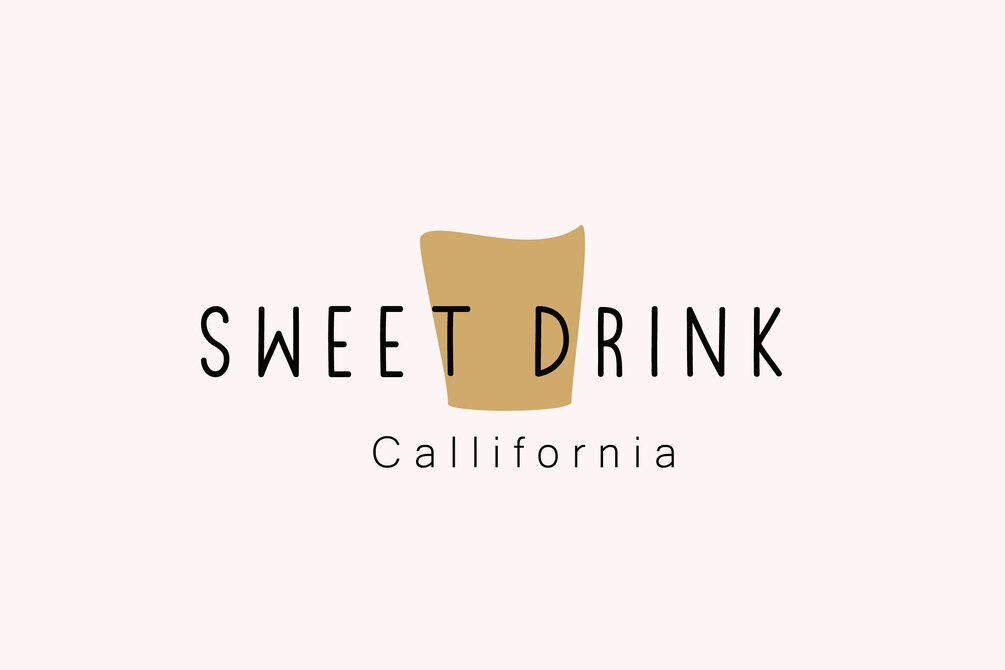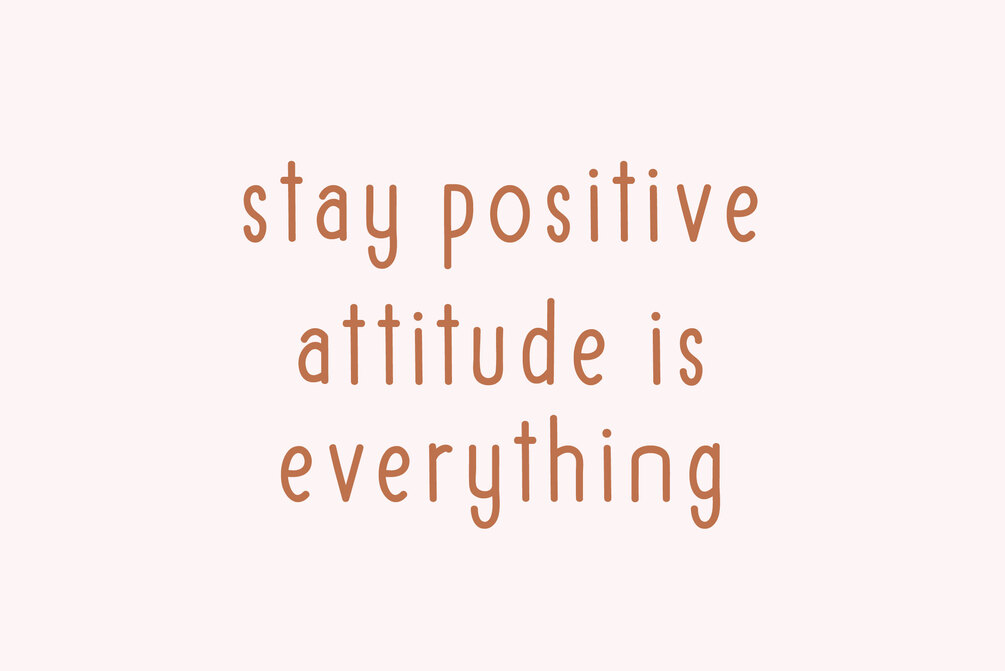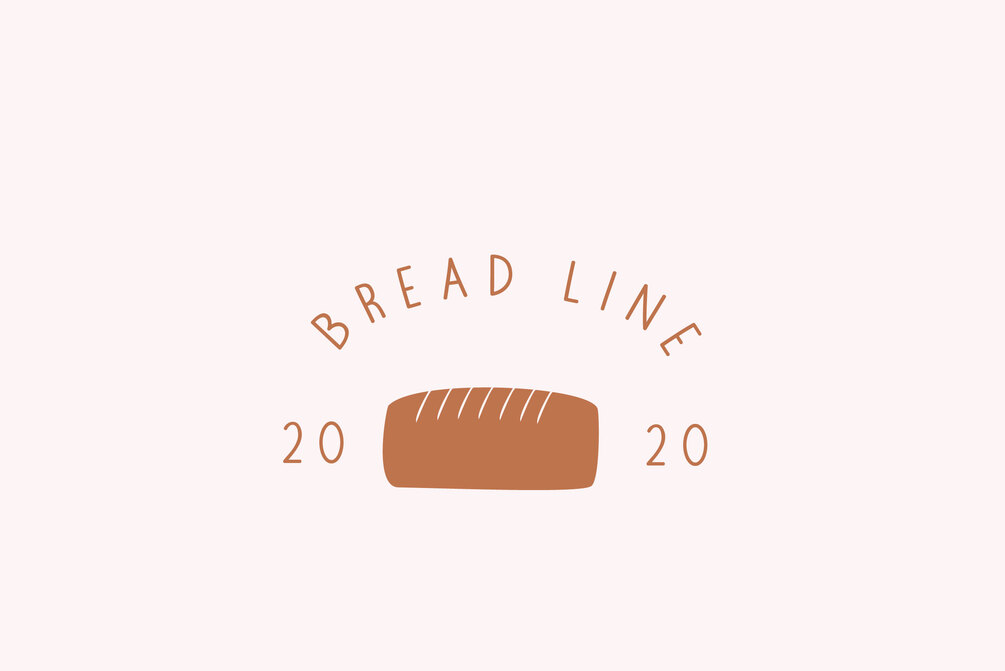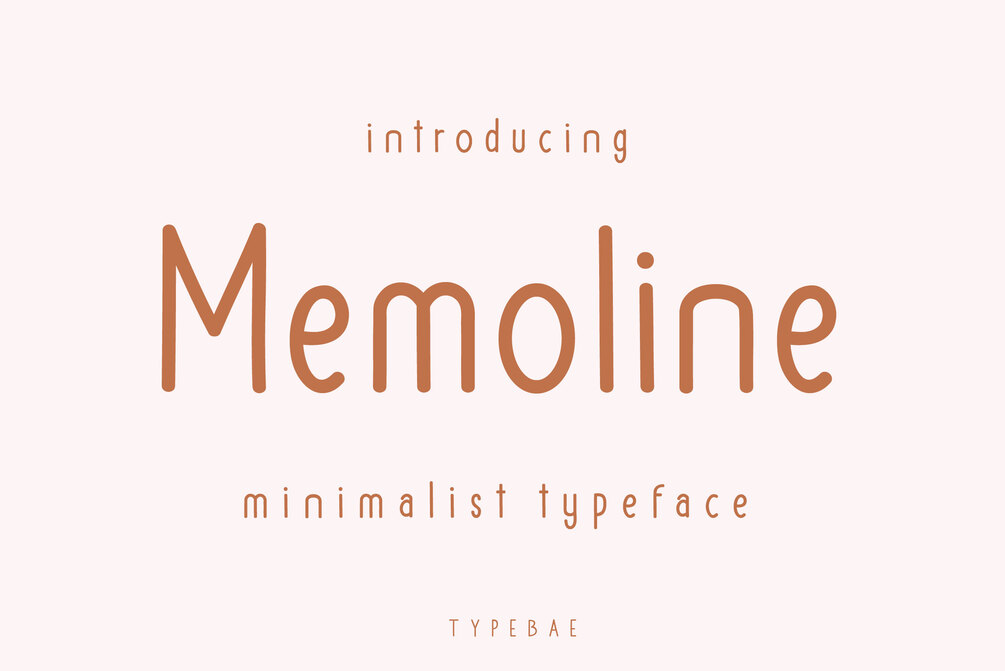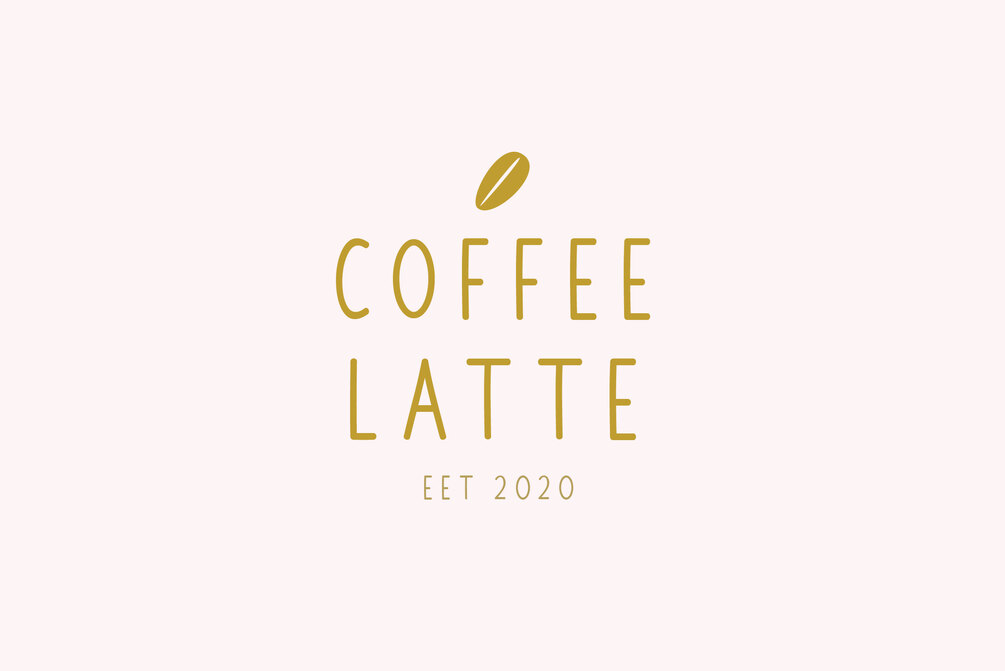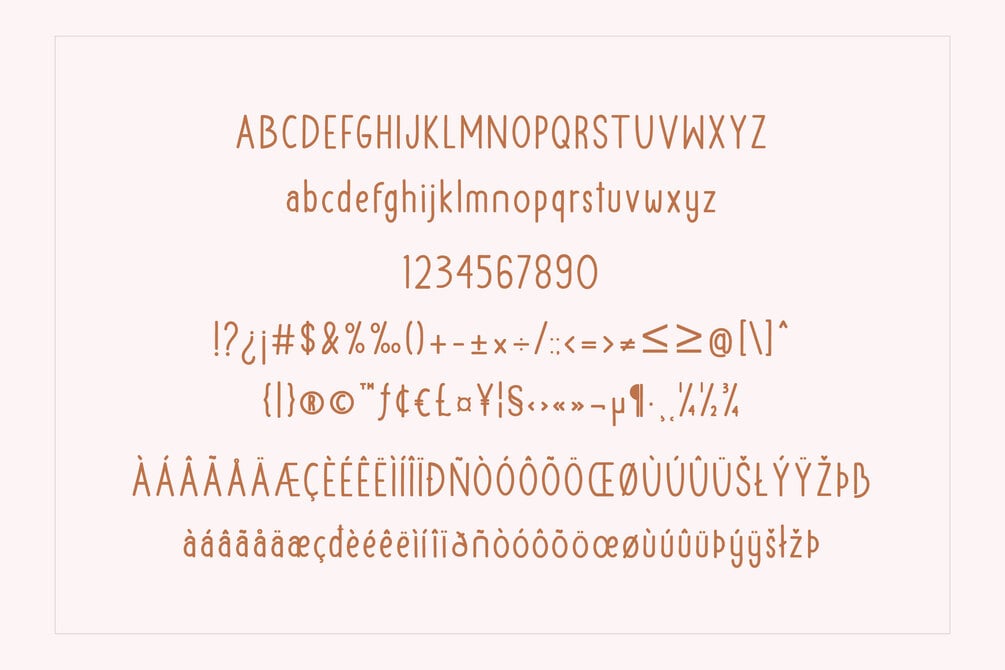
Memoline
Memoline is a minimal and neat sans serif font. It can easily be matched to an incredibly large set of projects, so add it to your creative ideas and notice how it makes them stand out!
• Uppercase & Lowercase
• Numbers & Punctuation
• Multilingual support